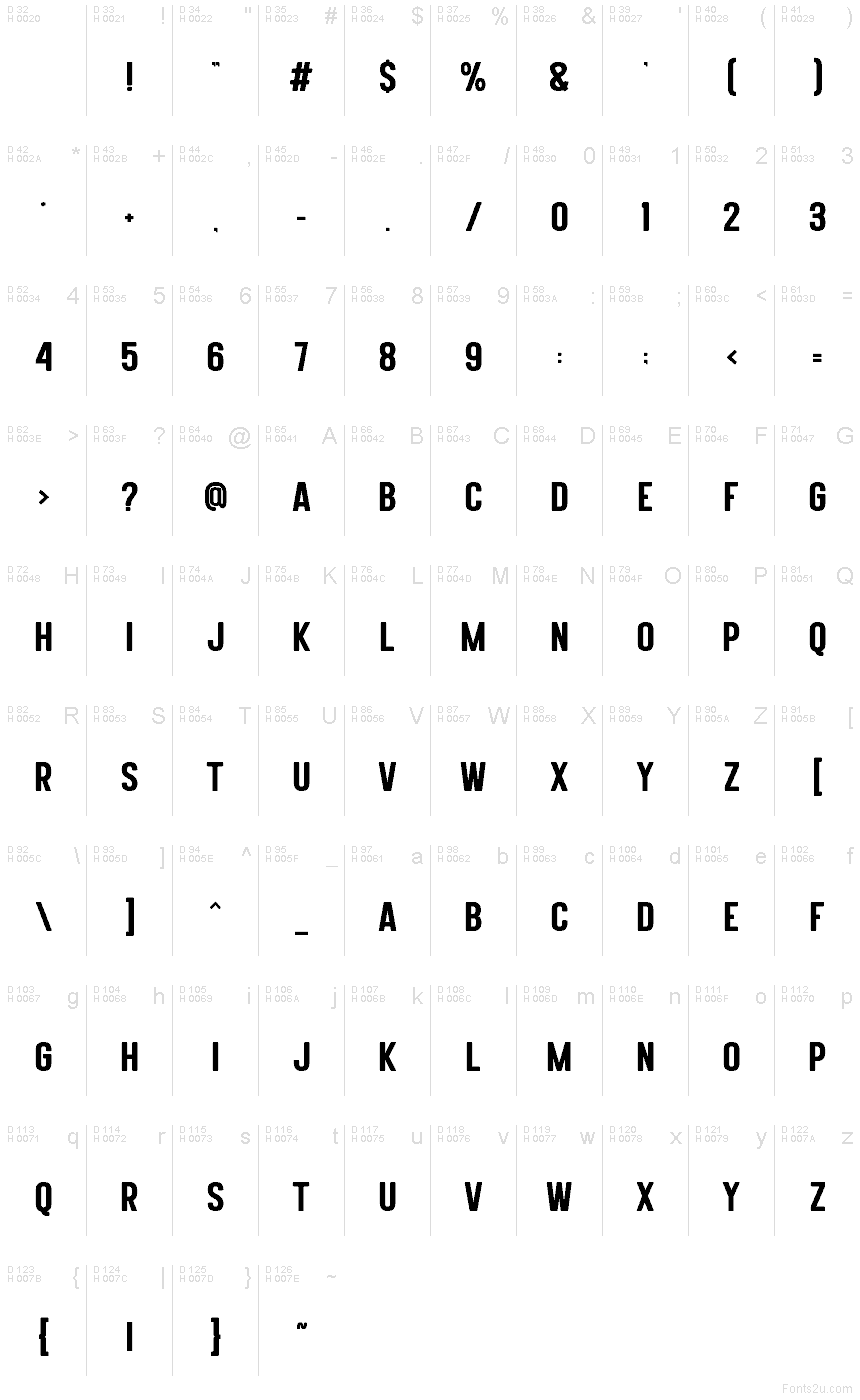
Votrag font by PutraCetol Studio is a thick monolithic heading sans serif with an arguably catchy letter appearance. A geometric look with condensed proportions is mixed in an assertive combination while also acquiring microscopic industrial vibes. Despite having a boring tone, this free sans serif font has retro-inspired characteristics that easily catch readers’ attention.
With thin characters and wide variety, work your way through Votrag in posters, editorial design, magazines, books/covers, logos/branding projects, web design and development projects (UI/UX), websites (CSS), packaging labels and branding applications.